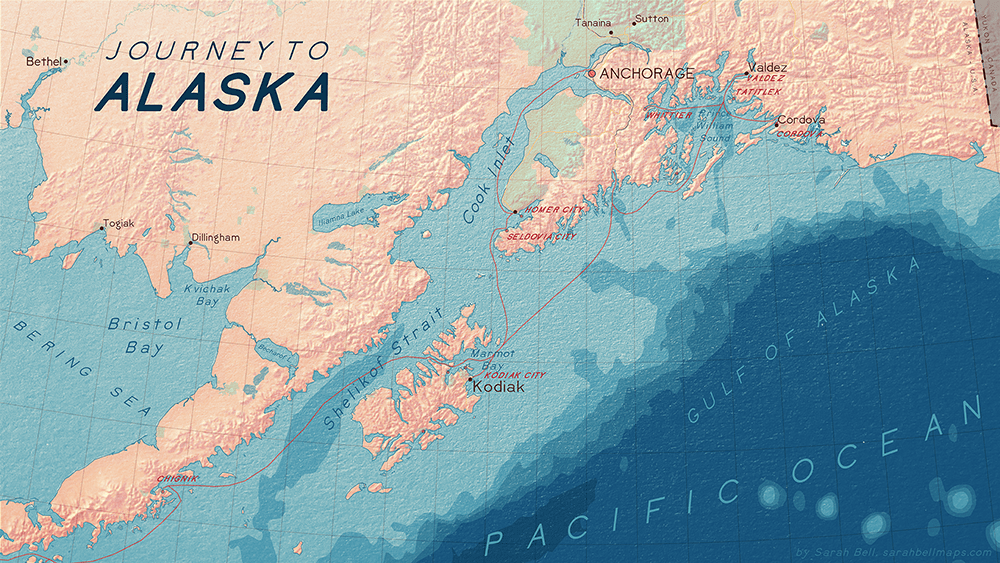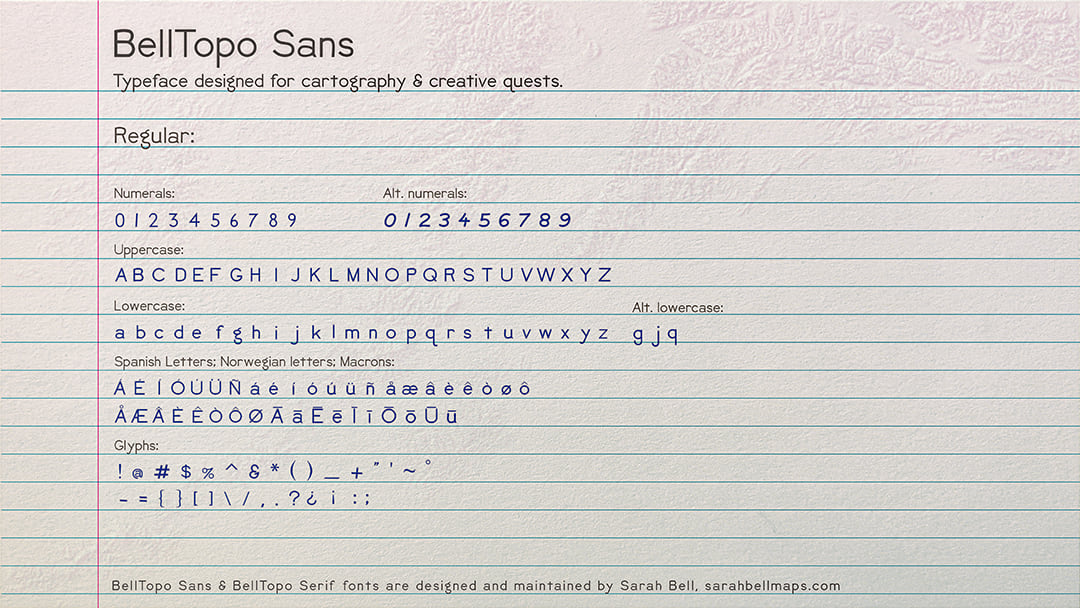
I created my first publicly available font, released in February 2020. I named this font BellTopo Sans, since it is heavily inspired by the early USGS topos from the late 1800s and early 1900s. You can find out more about the creation of BellTopo Sans and download it here.